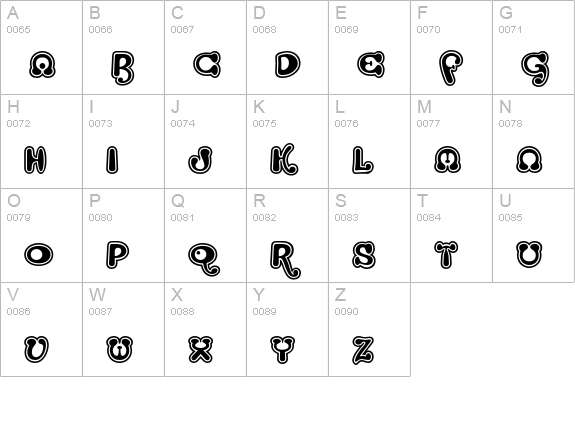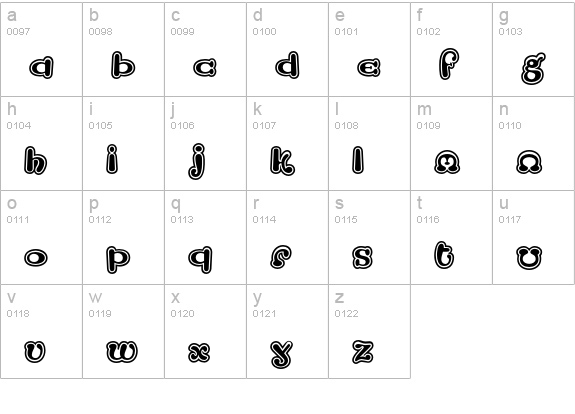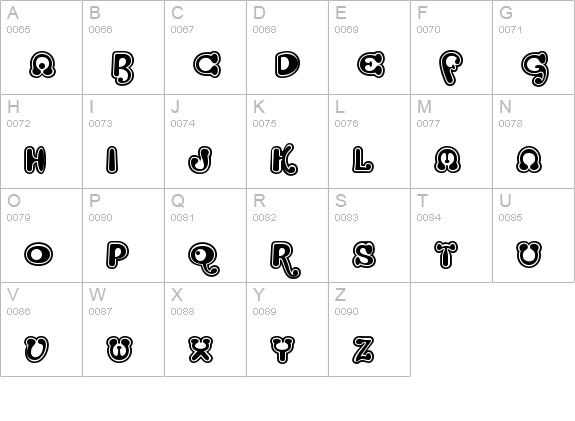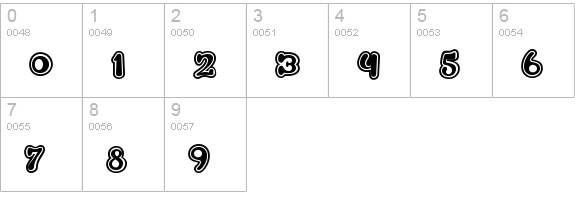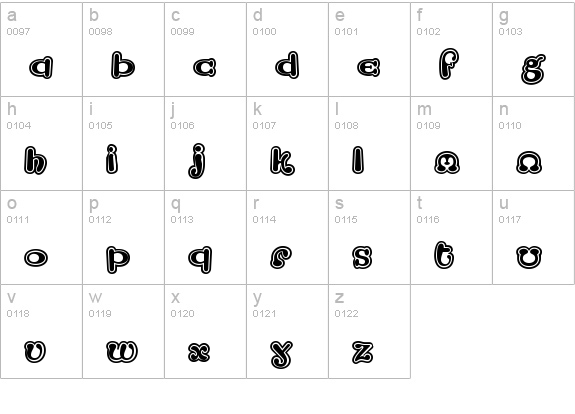
Strumpf Contour Font Details
Strumpf Contour font is a stylish and modern typeface that exudes elegance and sophistication. With its unique contours and sleek design, this font is perfect for adding a touch of class to any project. The Strumpf Contour font is versatile and can be used for a variety of design purposes, from branding to editorial design. The best part about the Strumpf Contour font is that it is completely free to download. You can easily access this font at FontsMarket.com and start using it in your projects right away. Whether you're working on a personal project or a client's design, the Strumpf Contour font will elevate your work and make it stand out. Don't miss out on this opportunity to enhance your designs with this beautiful and free font.